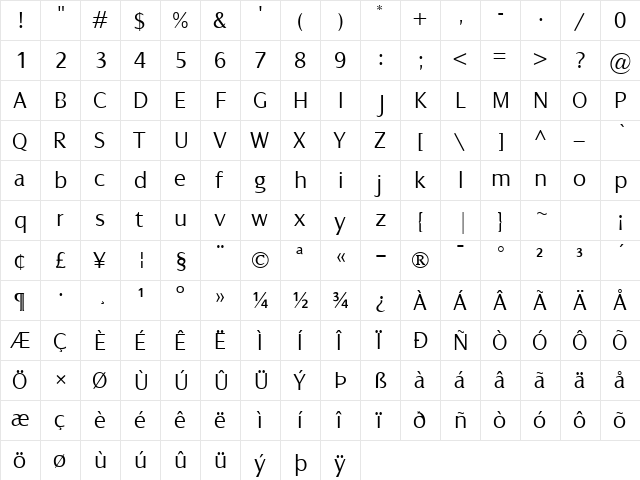
Dialog Light Regular
Design Context for Dialog Light Typeface
Dialog Light takes a measured approach to typography — its balanced proportions and neutral character make it a reliable workhorse for both digital and print work. Its slender proportions lend an understated elegance to any composition.